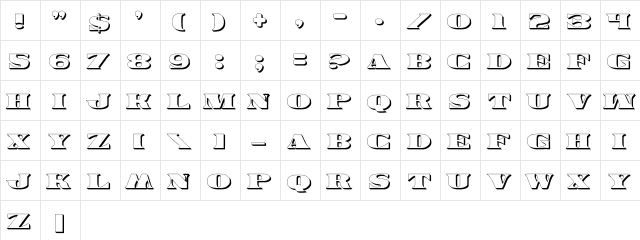
LHF Bank Note SHADOW Regular
| Foundry | John Studden for Letterhead Fonts |
| Designer | John Studden |
Design Context for LHF Bank Note SHADOW Typeface
LHF Bank Note SHADOW brings ornamental detail and strong personality to headlines and identities, where visual impact matters more than quiet functionality.
Font Pairing: Pair with a clean neutral sans-serif for body copy to let LHF Bank Note SHADOW's character lead without overwhelming the composition.
Pro Tip: Treat LHF Bank Note SHADOW as the centrepiece of your typographic hierarchy. One strong heading set in a decorative face can carry an entire layout.